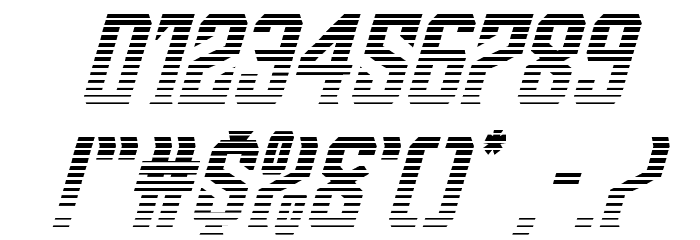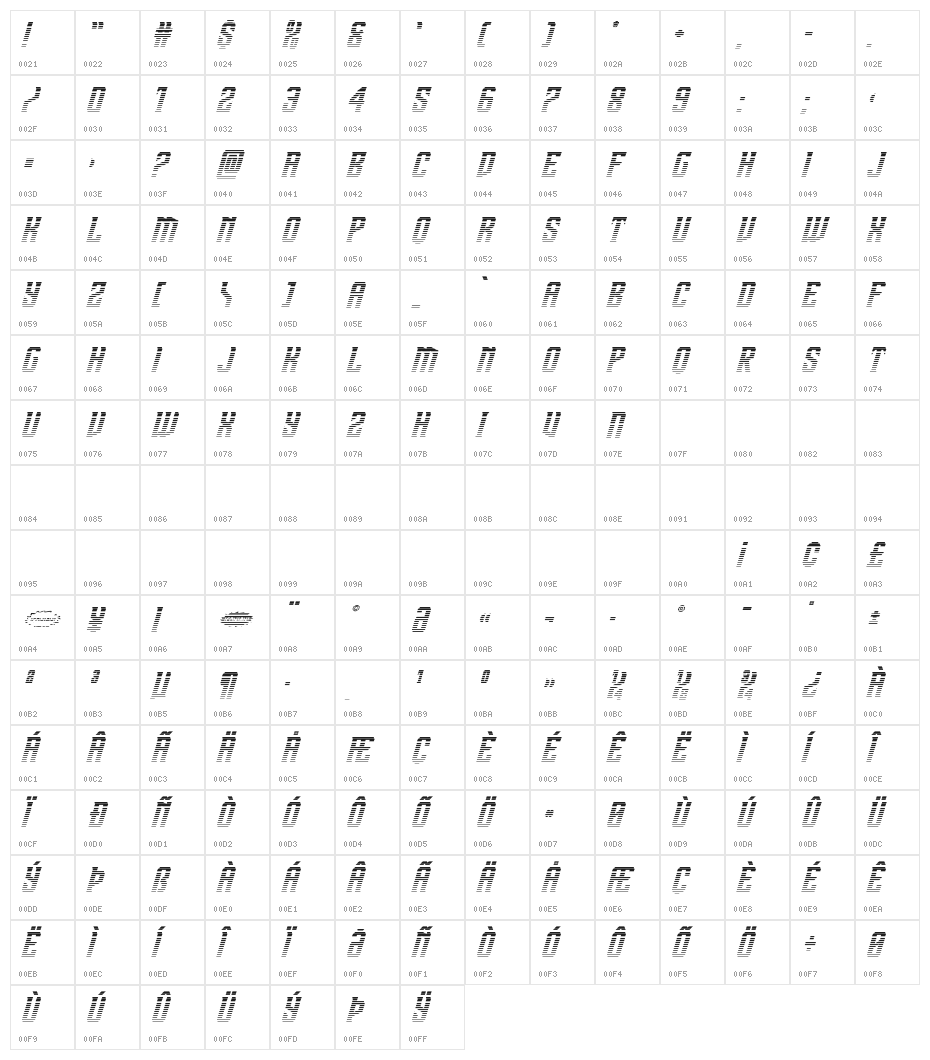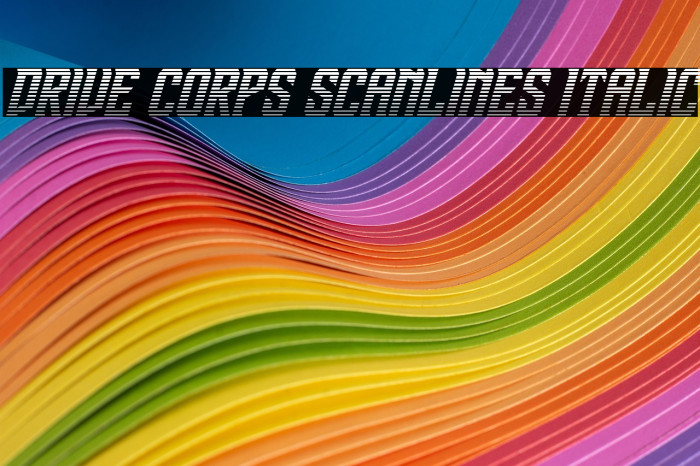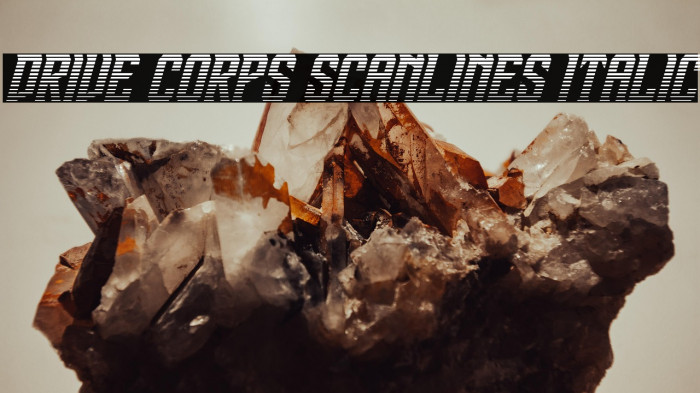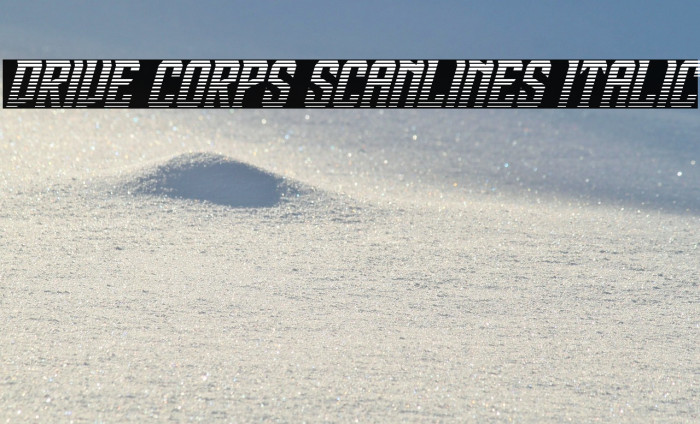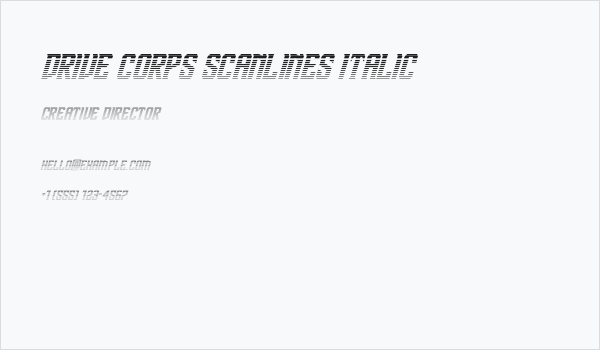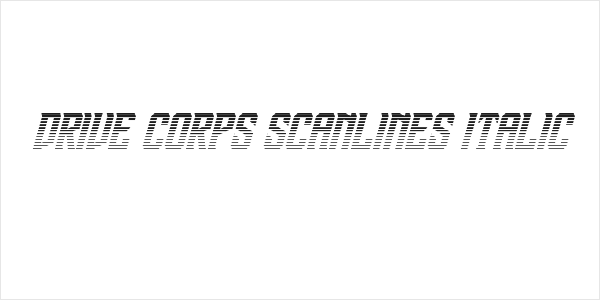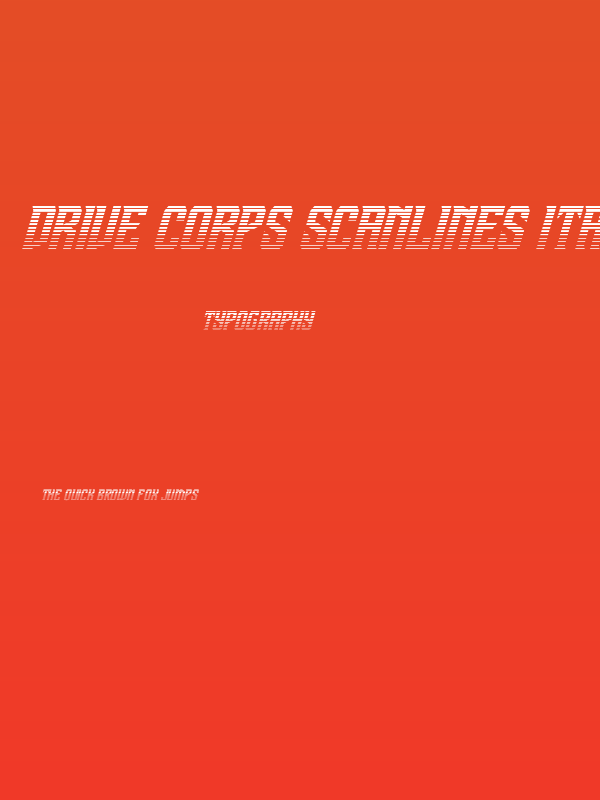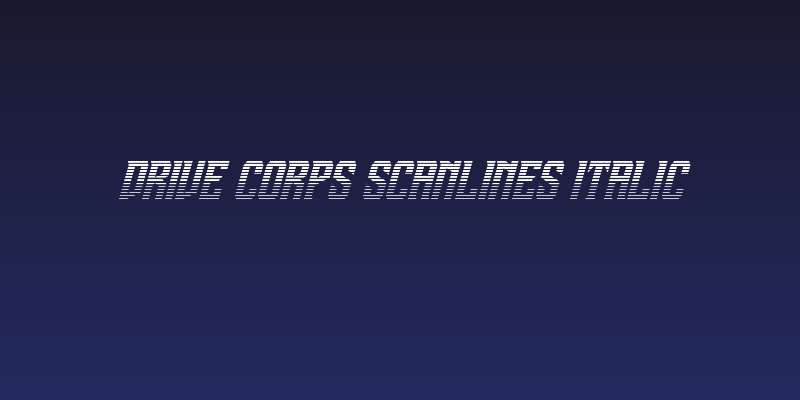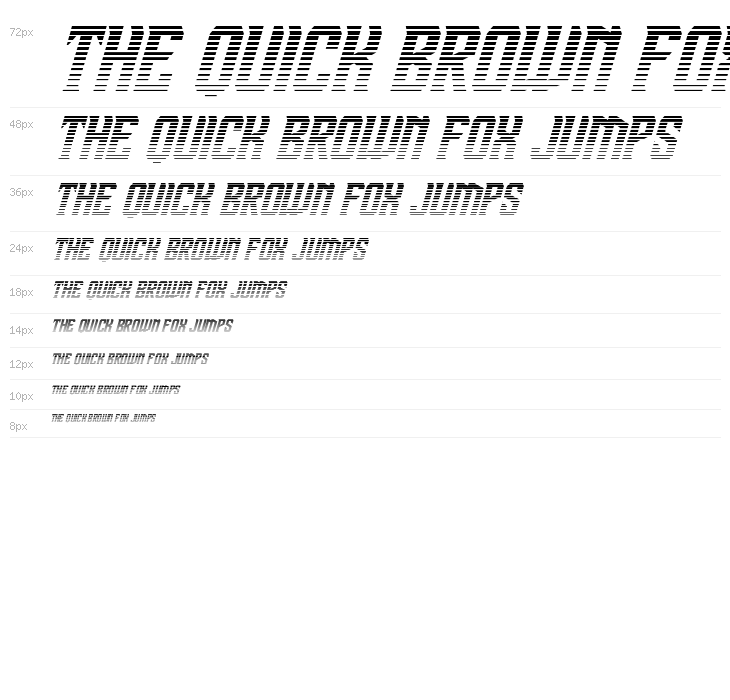
Drive Corps Scanlines Italic Font
Drive Corps Scanlines Italic Description
This font features a unique design characterized by horizontal scanlines running through each character, giving it a futuristic and digital appearance. The letters are italicized, adding a sense of motion and dynamism. The uppercase and lowercase letters maintain a consistent style, with sharp angles and a slightly condensed form. The numerals and special characters follow the same aesthetic, ensuring uniformity across all glyphs. The font's distinctive style makes it stand out, ideal for projects that require a modern and tech-inspired look.
Proposed ProjectsIdeal for tech-themed designs, digital art projects, video game graphics, and modern branding.